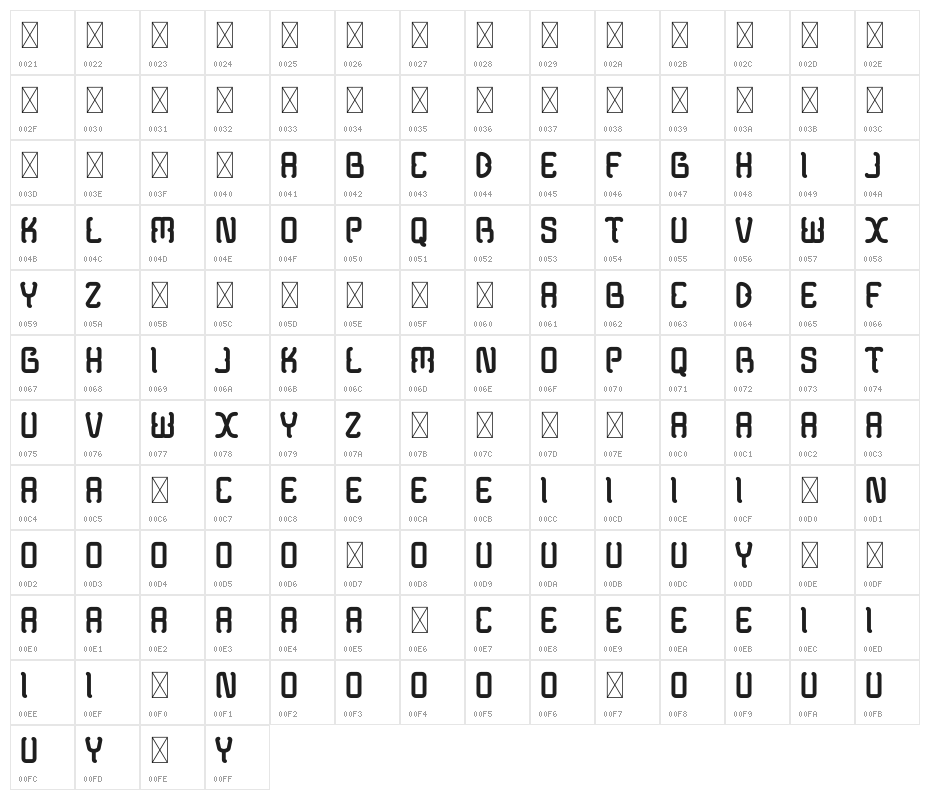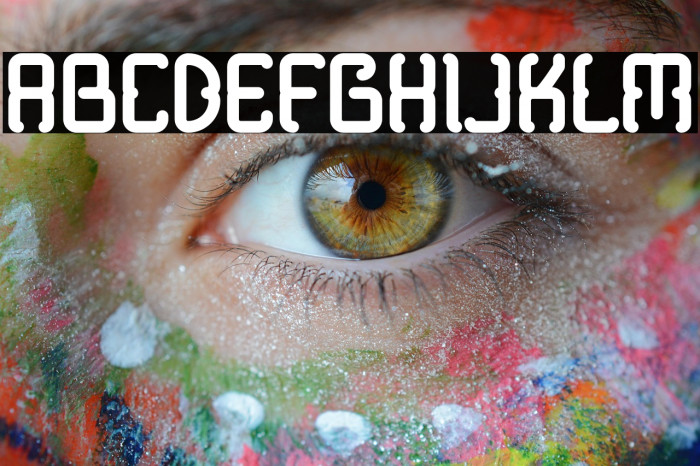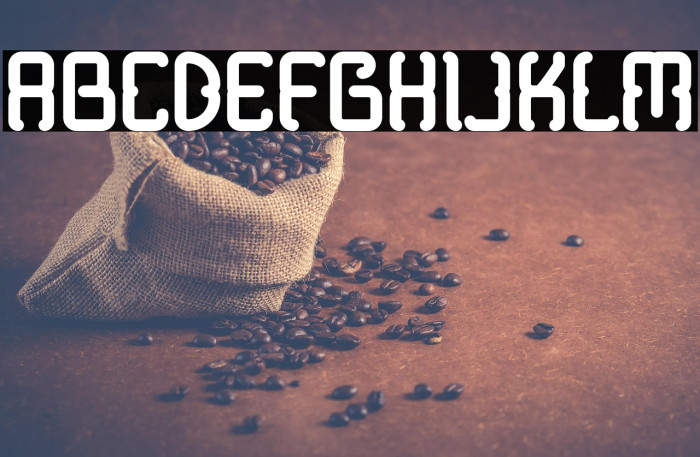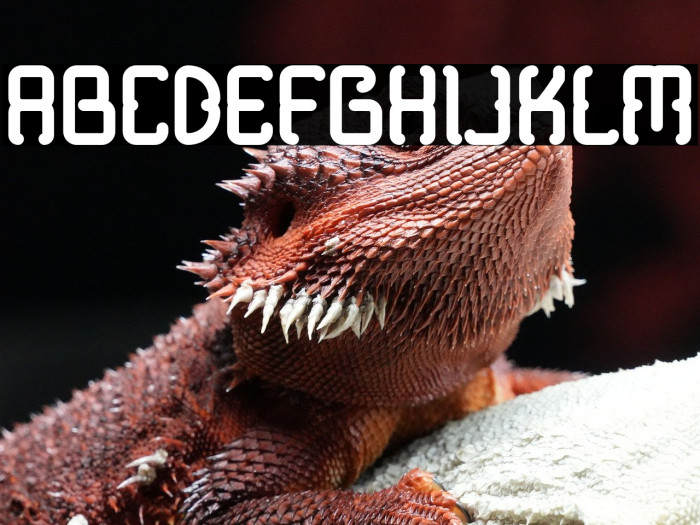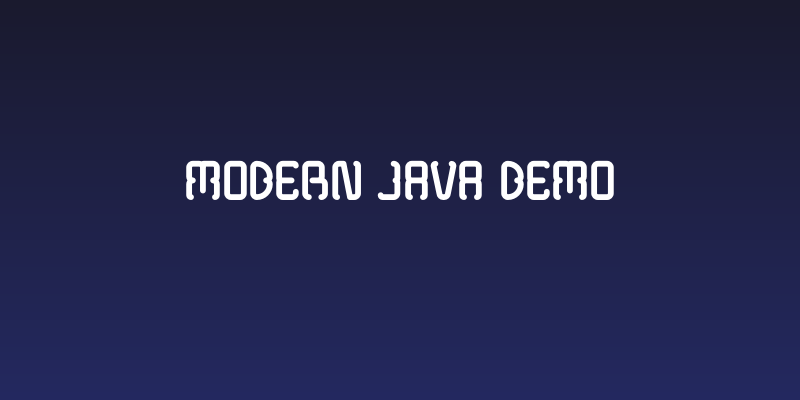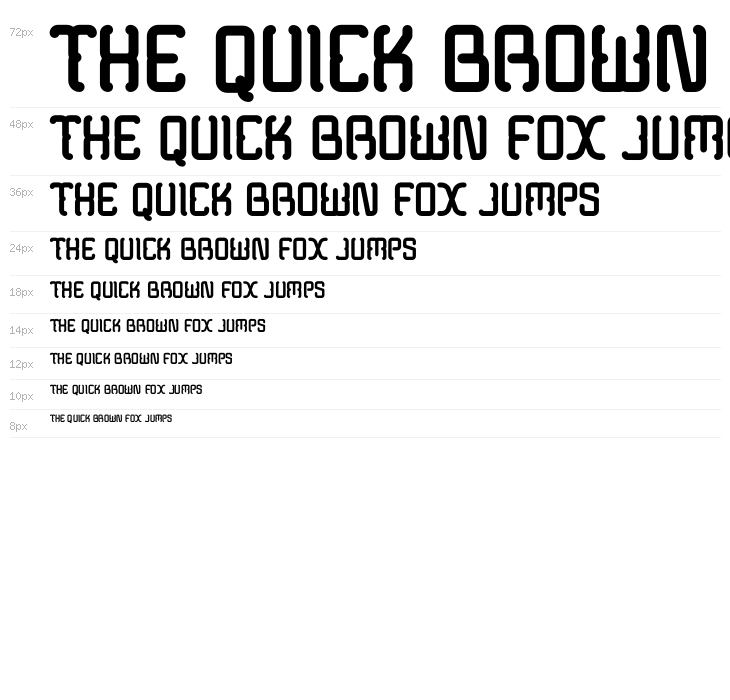
Modern Java Demo Font
Modern Java Demo Description
This font features a bold and modern design with a unique geometric style. The characters are constructed with thick, rounded strokes that create a strong visual impact. The uppercase letters are uniform in height, giving a cohesive and structured appearance. The font's design incorporates a futuristic aesthetic, making it suitable for contemporary projects. The absence of lowercase letters and numbers suggests a focus on decorative and display purposes. The overall style is clean and minimalistic, with a distinctive edge that sets it apart from traditional fonts.
Proposed ProjectsIdeal for branding, logos, posters, and digital media that require a modern and striking appearance.